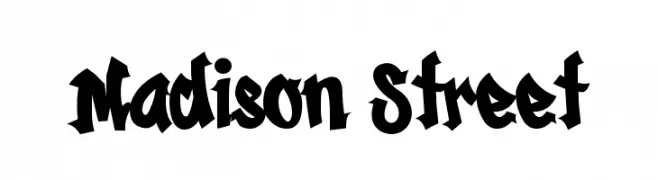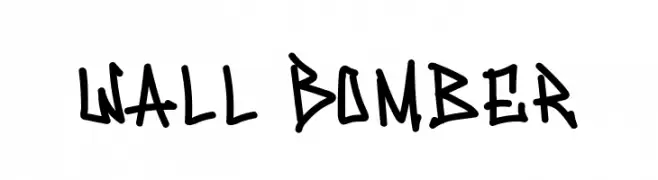
( Fonts by Cikareotype Studio )
A bold, graffiti-inspired font with dynamic strokes and high contrast.
( Fonts by Tokopress )
A bold, graffiti-inspired font with sharp angles and high contrast.
( Fonts by Tokokoo Studio )
A bold, graffiti-inspired font with dynamic, hand-drawn characters.
( Fonts by Din Studio )
A bold, graffiti-inspired font with a dripping effect and urban style.
( Fonts by NihStudio )
A bold, dynamic font inspired by urban street art and graffiti.
( Fonts by Ronny Studio )
A bold, graffiti-inspired font with sharp, angular lines and dynamic styling.
( Fonts by Tokopress )
A bold, graffiti-inspired font with sharp angles and dynamic strokes.
( Fonts by Cikareotype Studio )
A bold, graffiti-inspired font with dynamic, interconnected strokes.
( Fonts by Din Studio )
A bold, graffiti-inspired font with a dripping paint effect, perfect for urban and edgy designs.
( Fonts by CrazeCo.com.au )
A bold, graffiti-inspired font with dynamic and expressive characters.